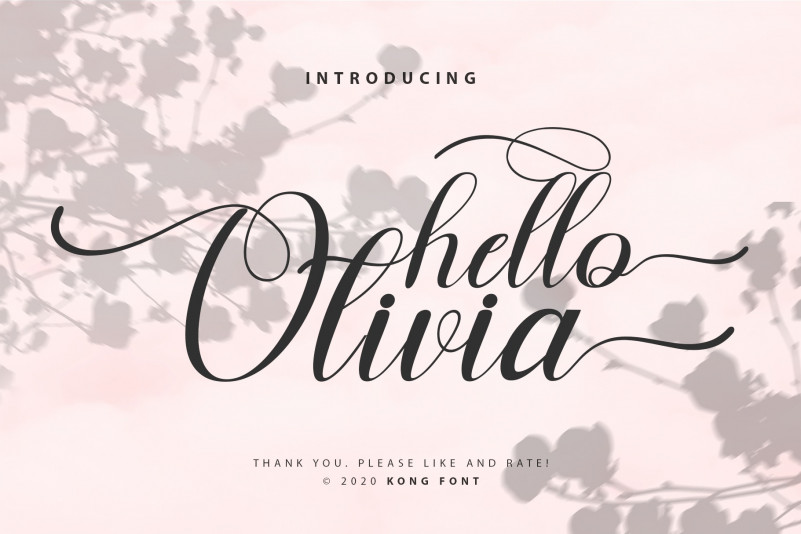
Hello Olivia Calligraphy Font
Introducing our New Font, very suitable as to make adorable invitation for wedding, birthday, special day. A collection of letters and numbers suitable your projects also great for Logotype, Branding Design, Logo Design, Digital Lettering Arts, T-Shirt/Apparel, Poster, Magazine, Signs, Advertising Design, and also perfect for your other projects branding.